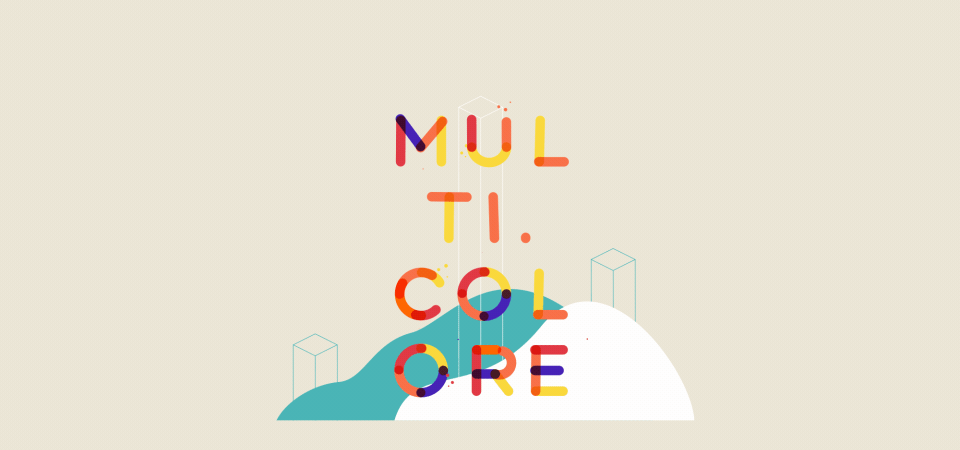
Multicolore - Animated Typeface
Like the name already reveals, Multicolore is a vibrant multi-colored typeface. It's based on a rounded modular design system. The lively animations perfectly compliment the multitude of colors. For a more minimal look, simply bring it back to a single color, and turn off secondary animations like the splashes and background circle.
Customizable Features
- 7 colors
- circle stroke width
- circle on/off
- splashes on/off
- multiply colors
- white background on/off
- circle stroke width
- circle on/off
- splashes on/off
- multiply colors
- white background on/off